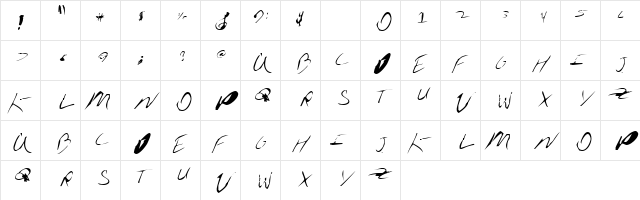
schleterian Regular
Design Context for schleterian Typeface
schleterian is a composed and adaptable typeface that performs quietly and consistently across a wide range of design contexts.